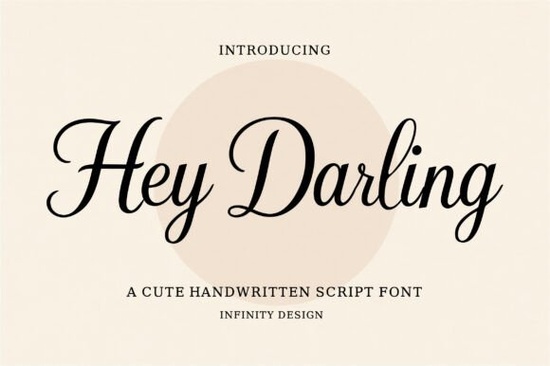
Finding a script typeface that feels personal without sacrificing readability is a common challenge for designers and small business owners. The Hey Darling Font addresses this by offering a sweet and elegant handwritten style that works well across various creative projects. Whether you are designing wedding invitations, creating logos, or making social media graphics, this font provides graceful curves and flowing strokes that add warmth to your work. It strikes a balance between professional polish and handcrafted charm, making it a versatile choice for romantic-themed designs.
Why is this script suitable for wedding stationery?
Wedding designs require a specific touch of elegance that standard fonts often miss. This typeface shines in this area because of its fluid connections and organic feel. When printed on high-quality cardstock, the varying stroke widths mimic real calligraphy, giving invitations a luxurious appearance. It is legible enough for guest names and dates but stylized enough to serve as a focal point on save-the-dates or menu cards. The romantic vibe aligns perfectly with floral layouts and soft color palettes often used in bridal branding.
For crafters selling printed goods, using a font with this level of detail can increase perceived value. Customers often associate handwritten styles with bespoke, high-end products. By choosing a script that flows naturally, you avoid the rigid look of digital text, making every piece feel unique. This is crucial for businesses focusing on personalized gifts or event planning materials where emotional connection matters.
How does it compare to other handwritten styles?
Having a variety of scripts allows you to match the typography to the specific mood of each project. You can grab the Hey Darling Font directly for your primary romantic designs and use these alternatives to support different visual needs.
Where can you use this typeface in your business?
Beyond wedding invites, this font is highly effective for print-on-demand sellers. It looks great on tote bags, mugs, and wall art featuring inspirational quotes. The flowing strokes remain clear even when scaled down for social media posts or scaled up for large posters. Branding elements like watermarks or signature logos also benefit from this style, as it adds a personal signature feel to your business identity.
Small business owners can use it for packaging labels to create a handmade aesthetic. If you sell candles, soaps, or baked goods, this typography suggests care and attention to detail. It is also suitable for digital products like planners or journals where a friendly, approachable tone is desired. The key is to ensure there is enough contrast between the text and the background so the fine lines remain visible.
What should you check before downloading?
Before adding any new typography to your library, review the license terms to ensure they cover your intended use. Most creative assets allow for commercial projects, but it is wise to confirm if there are limits on the number of sales or specific restrictions for print-on-demand. Additionally, check if the font includes alternate characters or ligatures. These features allow you to customize words so they look more natural and less repetitive.
Test the font in your design software to ensure it supports the languages you need. Some scripts are limited to basic Latin characters, which might affect international customers. Pairing is another consideration; this script works best with simple sans-serif fonts for body text. Avoid pairing it with other complex scripts to prevent visual clutter. Keeping the rest of your design clean allows the handwritten elements to stand out effectively.
Quick Design Checklist
- Contrast: Ensure text color stands out against the background.
- Spacing: Adjust line height to prevent overlapping strokes.
- Pairing: Combine with a clean sans-serif for body copy.
- Scale: Test readability at both small and large sizes.
Taking these steps ensures your final designs look professional and communicate the right message. By selecting the right script and pairing it wisely, you can create visuals that resonate with your audience and enhance your brand identity.